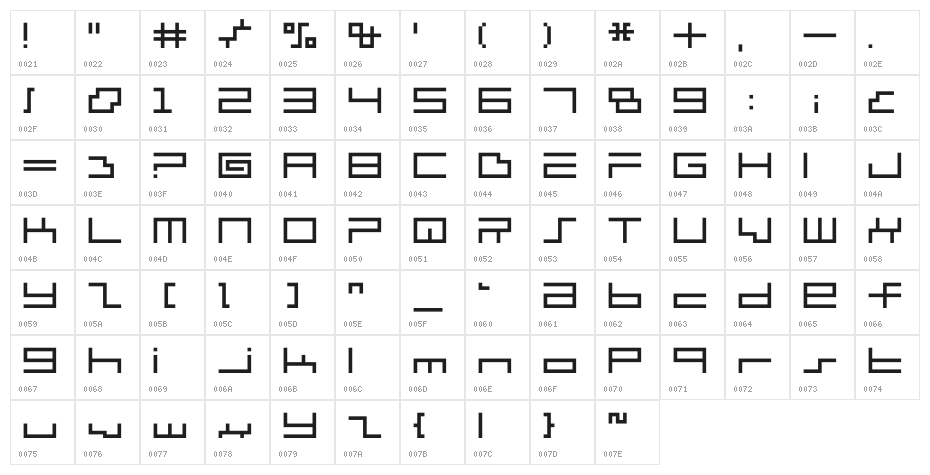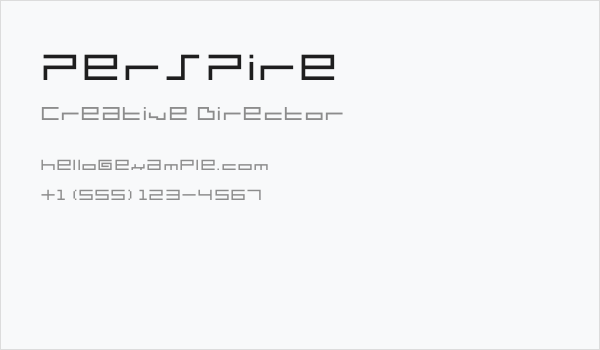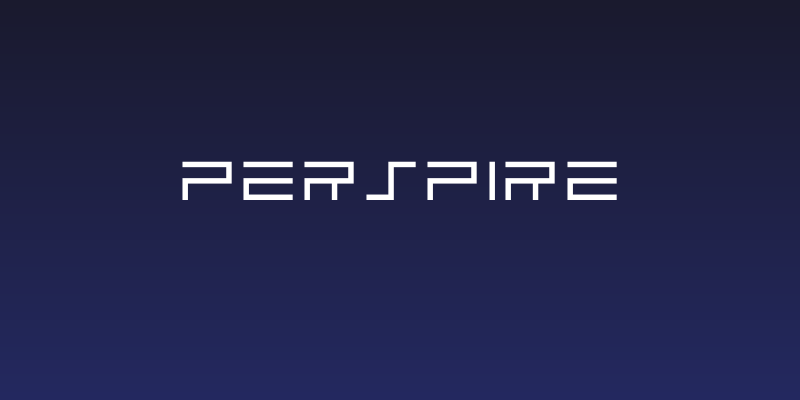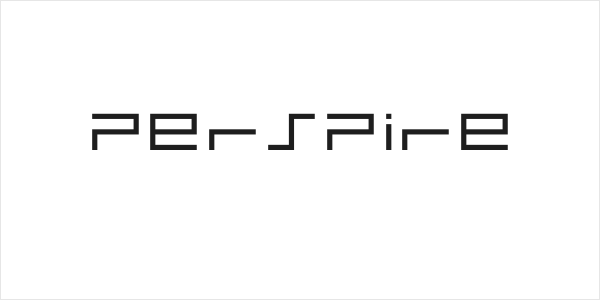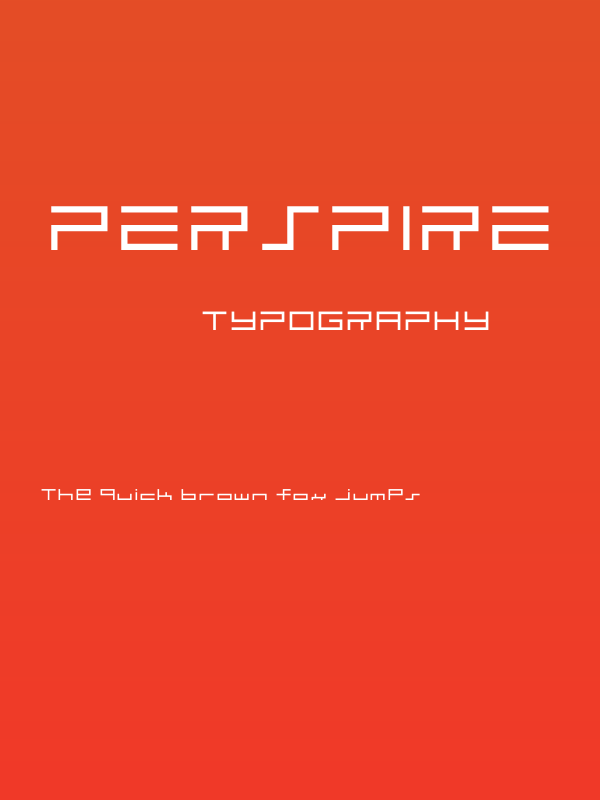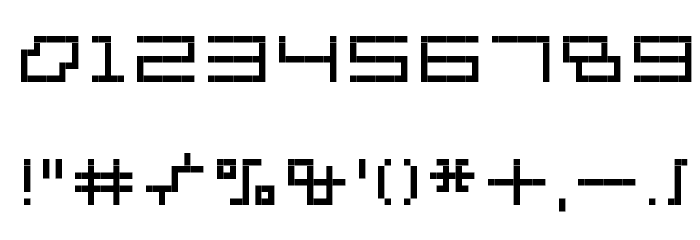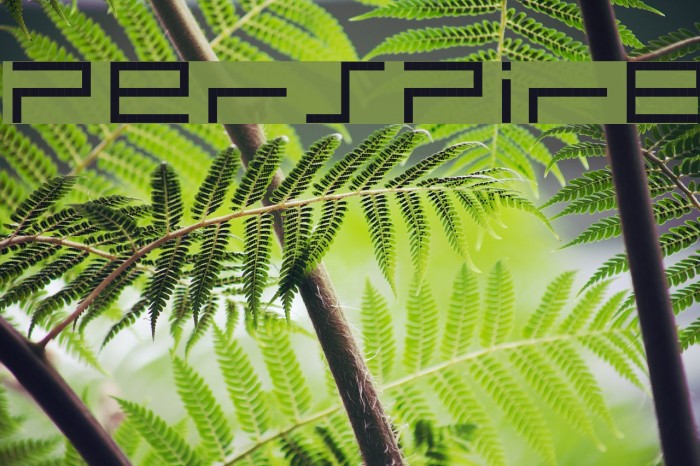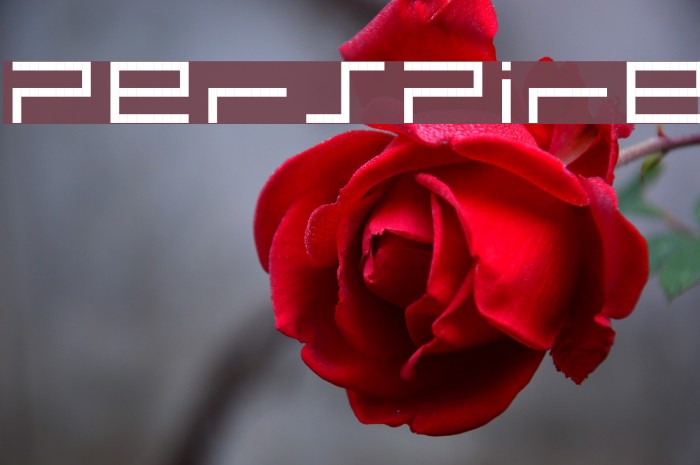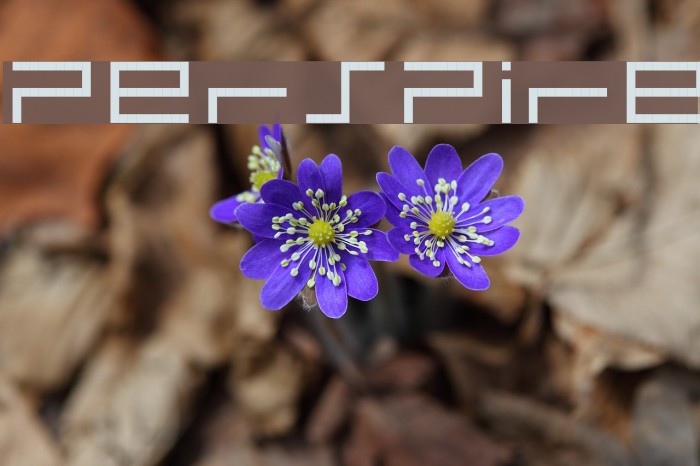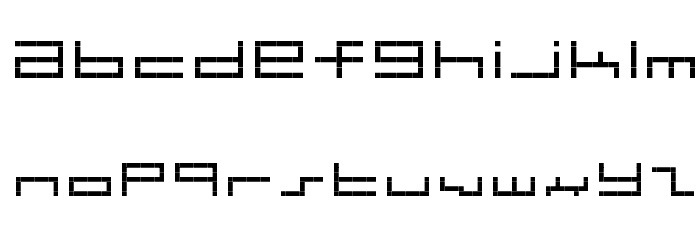
PerSPire Font
PerSPire Description
This font features a pixelated, grid-like design reminiscent of early digital displays and retro video games. Each character is constructed with a uniform grid pattern, giving it a distinctly digital and technical appearance. The uppercase and lowercase letters maintain a consistent height, contributing to a cohesive and structured look. The numbers and special characters follow the same pixelated style, ensuring uniformity across all glyphs. The font's geometric nature makes it ideal for projects that require a technological or retro aesthetic.
| Use Case | Logos, Posters, Digital Art |
| Proposed Projects | Ideal for video game design, tech-themed posters, digital art, and retro-style branding. |